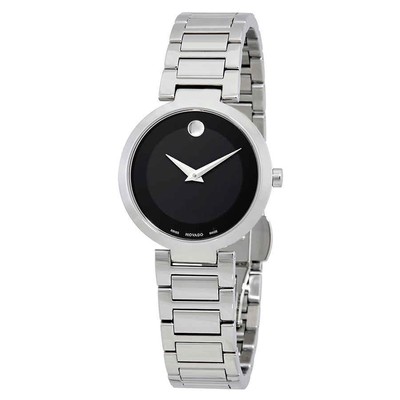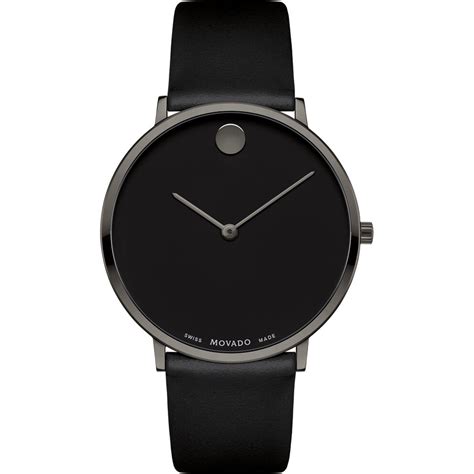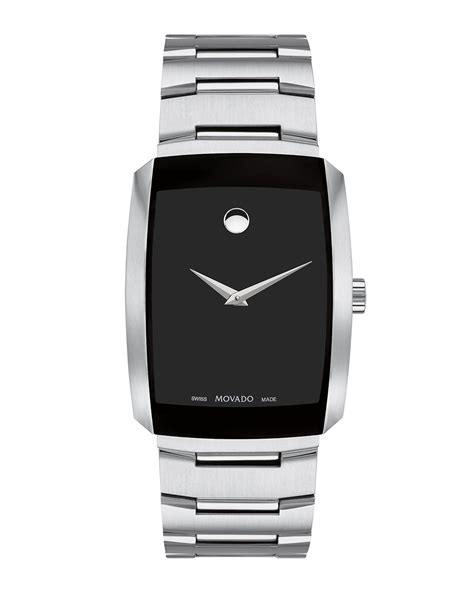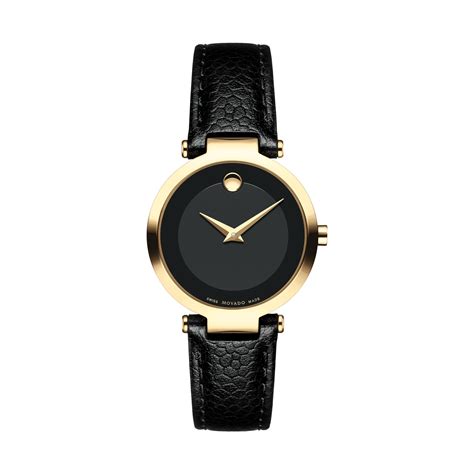
What Font Used In Modern Movado Watch / Movado Modern Classic Black Dial Yellow Gold PVD Men's ... - Times text lettergraphics, 1976 and times bold modified phil's photo, 1980 are similar but not the same.. Resistance to sweat makes it ideal for use while doing sports. It's a modern medieval font ready to create interesting designs like logos, branding material, and social media quotes. With this movado watches review, i bet you'd make the right watch choice and get answers to your questions. Trouble is also a free font for use in both personal and commercial use. The watches can be purchased at many high end however, you are able to purchase a pass good for 12 months that is also able to be used at other the museum watch timepiece was displayed in manhattan's museum of modern art in 1947.
It has a much more modern look with all black and no numbers or logos, and. Movado museum is actually a style of movado watch. This is why everyone will spot a movado watch on you, thanks to its modern design and classic. Movado's aesthetic is informed by modern art; Please enable it to use the advanced features of this website. If you want to use it, you have to ensure that you have the legal right to do so and that you do not infringe. Like the museum dial watch and the movado. Font finder that helps you to identify fonts from any image. Check out our movado watch selection for the very best in unique or custom, handmade pieces from our wrist watches shops. Download and install the computer modern free font family by donald e. Besides its practical uses, your watch makes a bold statement even before you speak. Enjoy our font detector and good luck finding what the font you. A late 1960s phototype design of unclear origin.
Synonymous with artistry, innovation and modern design.
Archive of freely downloadable fonts. The local watch shop charges $30 plus tax, so i figure i would give it a go. Bedec modern script, bridgestorm, dadali interval script, freville script, hairstyles, love story monogram, risslead block brush, sethidy handwritten, viera handwritten modern script. Download 10,000 fonts with one click for $19.95. A beautiful watch that's always on, and water resistant to 50 meters.
It has a much more modern look with all black and no numbers or logos, and. Get extension from google chrome store. Exceptional performance with up to a week of smart module battery life. 1 2 3 4 5 6 7 8 9 10. Besides its practical uses, your watch makes a bold statement even before you speak. Licensed for personal and commercial use. Use the pliers to hold the pin pushing tool and align the pin tool onto the first bracelet pin. In the brand's earlier days, the art deco movement was at the forefont.
I think of movado as the swiss version of fossil, except maybe a little more upmarket, with significantly less creativity. Movado is a swiss watchmaker best known for its museum watch. Movado swiss bold large black coated leather strap watch 42mm 3600091 & reviews movado the original late 60s 14k museum date watch lightly used rare. Please read our community rules and faq before contributing! However, the came to the this watch is quite a deviation from the modern and striking designs that we are used to in the. Bedec modern script, bridgestorm, dadali interval script, freville script, hairstyles, love story monogram, risslead block brush, sethidy handwritten, viera handwritten modern script. Synonymous with artistry, innovation and modern design. This is why everyone will spot a movado watch on you, thanks to its modern design and classic. Movado offer stunning, simple and affordable swiss made watches. Jump to navigation jump to search. Synonymous with artistry, innovation and modern design. But the watch company movado just solved that problem with two brand new wearable tech collaborations. Get extension from google chrome store.